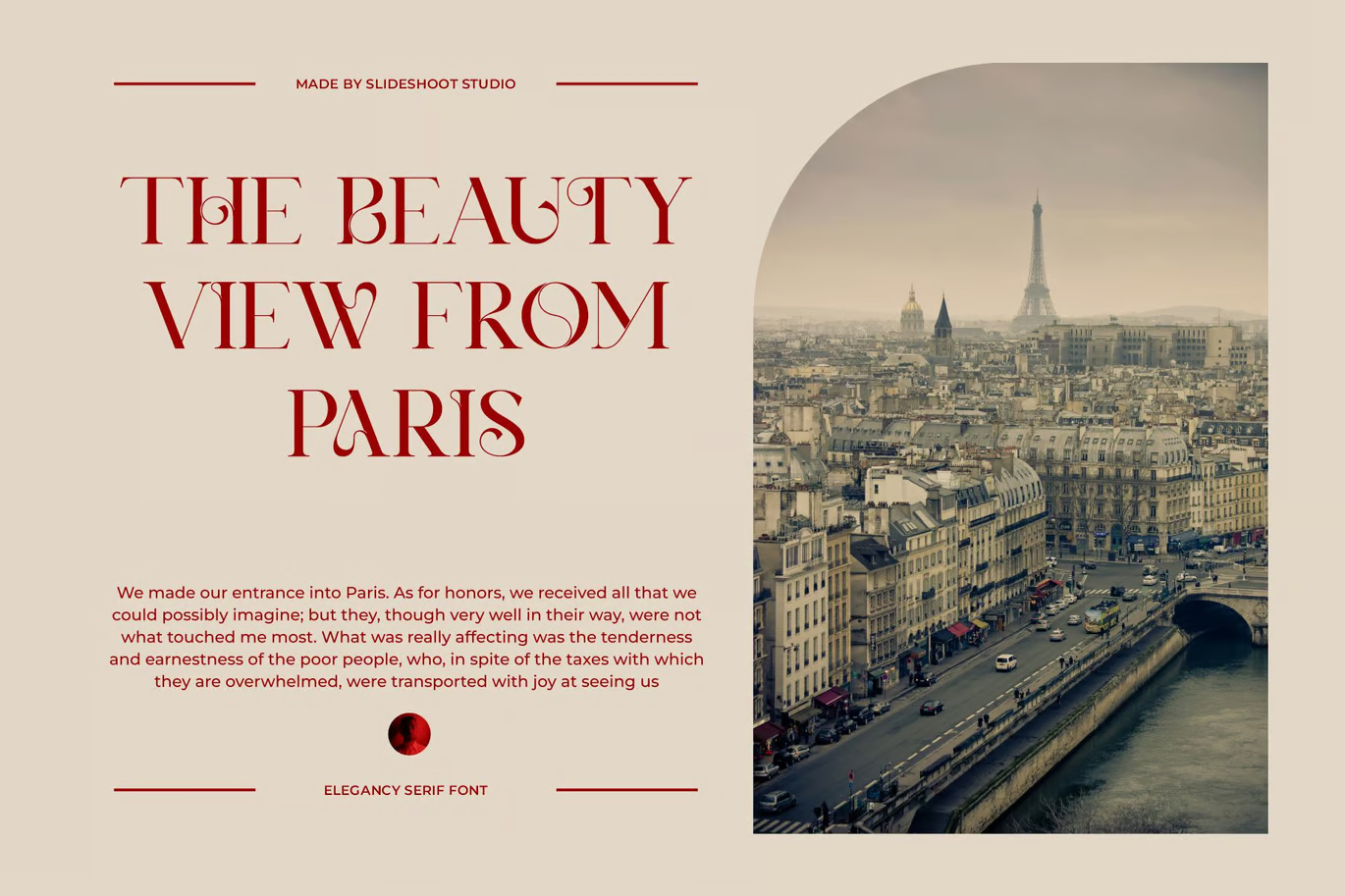
Xerina Modern Serif Font
Xerina Serif is an elegant and classy all-caps font perfect for branding and logo designs. This sophisticated serif font has a beautiful character, making it ideal for invitation cards, stylish logos, movie titles, business cards, book covers, brand names, and more. Xerina is a smooth serif font that exudes sophistication and modernity. Its stylish alternates and ligatures make it a perfect choice for any creative project.
Xerina Modern Elegant Serif Font
Xerina || Modern Serif Font